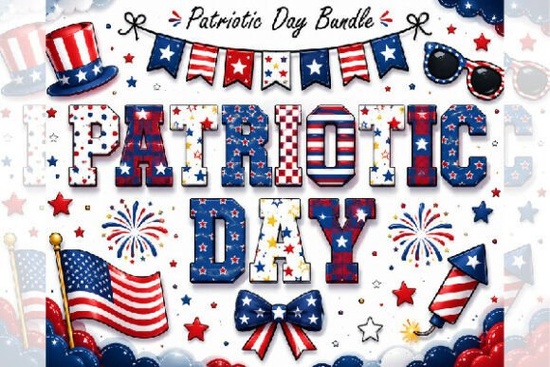
If you're looking for a bold, sporty, and unmistakably American font for your 4th of July designs, the Patriotic Day Font is a straightforward choice. It’s not just another red-white-and-blue typeface it’s built from the ground up with varsity lettering traditions in mind, making it ideal for t-shirts, sublimation blanks, stickers, and social media graphics that need energy and authenticity. Unlike generic patriotic fonts, this one includes layered color details that pop in design software like Adobe Illustrator, Photoshop, Canva, and Figma though keep in mind the preview on Creative Fabrica shows in grayscale due to platform limitations.
What makes this font different from other patriotic fonts?
Most patriotic fonts lean heavily on stars, stripes, or script flourishes which can feel overdone or hard to pair with other elements. The Patriotic Day Font stands out because it borrows directly from vintage college lettering: thick strokes, clean angles, and intentional spacing that reads well at any size. Each letter has subtle patriotic texture think stitched seams, flag-inspired highlights, and layered fills but without sacrificing legibility or versatility. That means it works just as well on a toddler’s onesie as it does on a large-format parade banner.
Where do designers actually use this font?
Real-world usage matters more than flashy features. Here’s how crafters and small businesses are putting it to work:
- T-shirt shops layer it over distressed fabric textures or pair it with simple star icons for clean, wearable 4th of July merch.
- Sublimation sellers use the layered color version (available in .OTF and .TTF) to print vibrant, fade-resistant text on mugs, tumblers, and jerseys no extra clipping masks needed.
- Planner and sticker makers pull individual letters into digital sticker sheets or cut them with Cricut/Silhouette machines using the included SVG files.
- Social media creators drop it into Instagram story templates or Facebook event banners where bold, readable text helps messages stand out in fast-scrolling feeds.
Who is this font not ideal for?
It’s not meant for body text, legal disclaimers, or long paragraphs the styling is too bold and decorative for readability at small sizes. If you need a clean sans-serif for product labels or packaging fine print, pair it with a neutral companion font instead. Also, while it’s great for U.S.-focused themes, it doesn’t include extended Latin characters or multilingual support so it’s best suited for English-language projects centered around American holidays and sports culture.